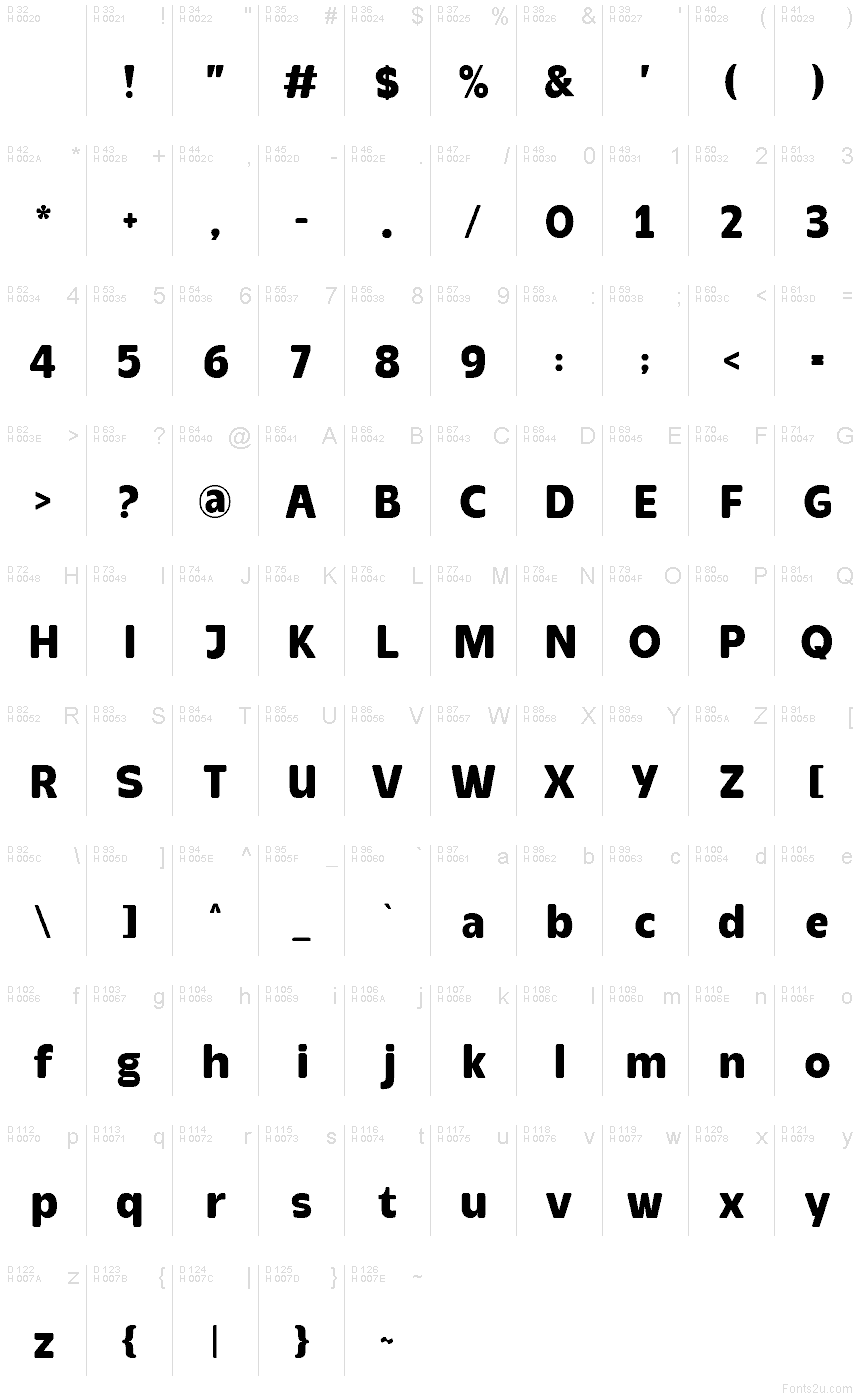
Cartenz
Cartenz font by Four Lines stands out as an approachable sans serif with its smooth texture and rounded letters. Its modern and clean appearance creates contemporary designs that draw attention with pleasant aesthetics. Cartenz further achieves this effect through a powerful boldness which when combined with the other subtle details all combine to appeal to different audiences.